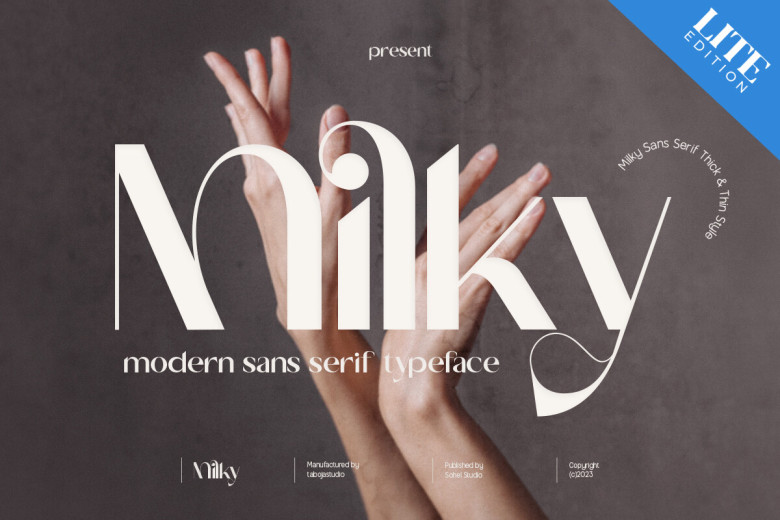
Milky Font
Cubistic, Milky Font can be described as the skull’s strong bold type combined with sic thin letters in each character. This universal typeface is designed and developed to an unparalleled standard of workmanship to provide strength to the designs along with the much needed elegance.
This font is every designer’s dream, It has charming thick and thin characters that make it appear very professional and best for modern designs. It means that it can be a perfect branding solution, headlines, and striking offers, which will make your message look solid and trustworthy.
Milky Sans Serif Font